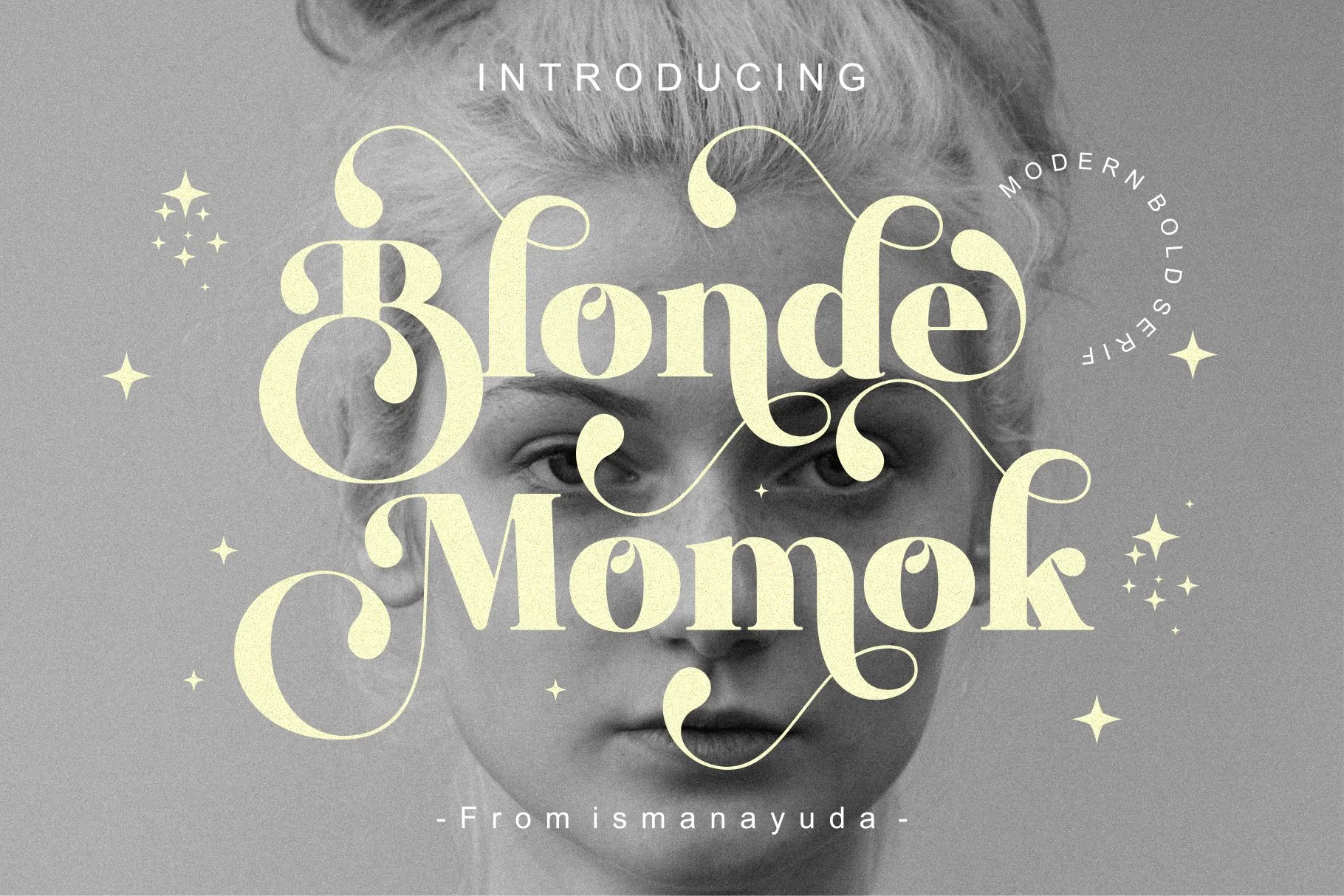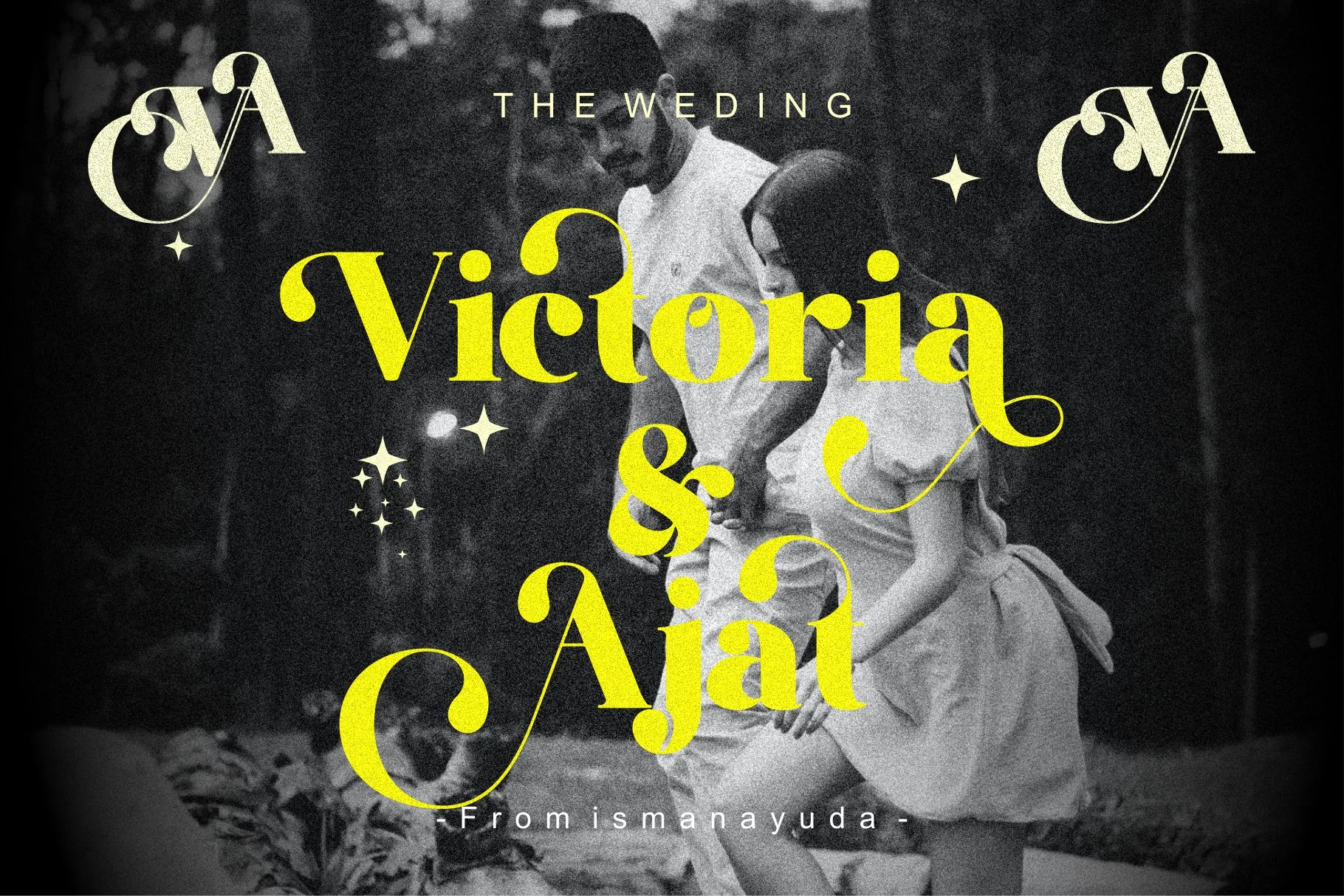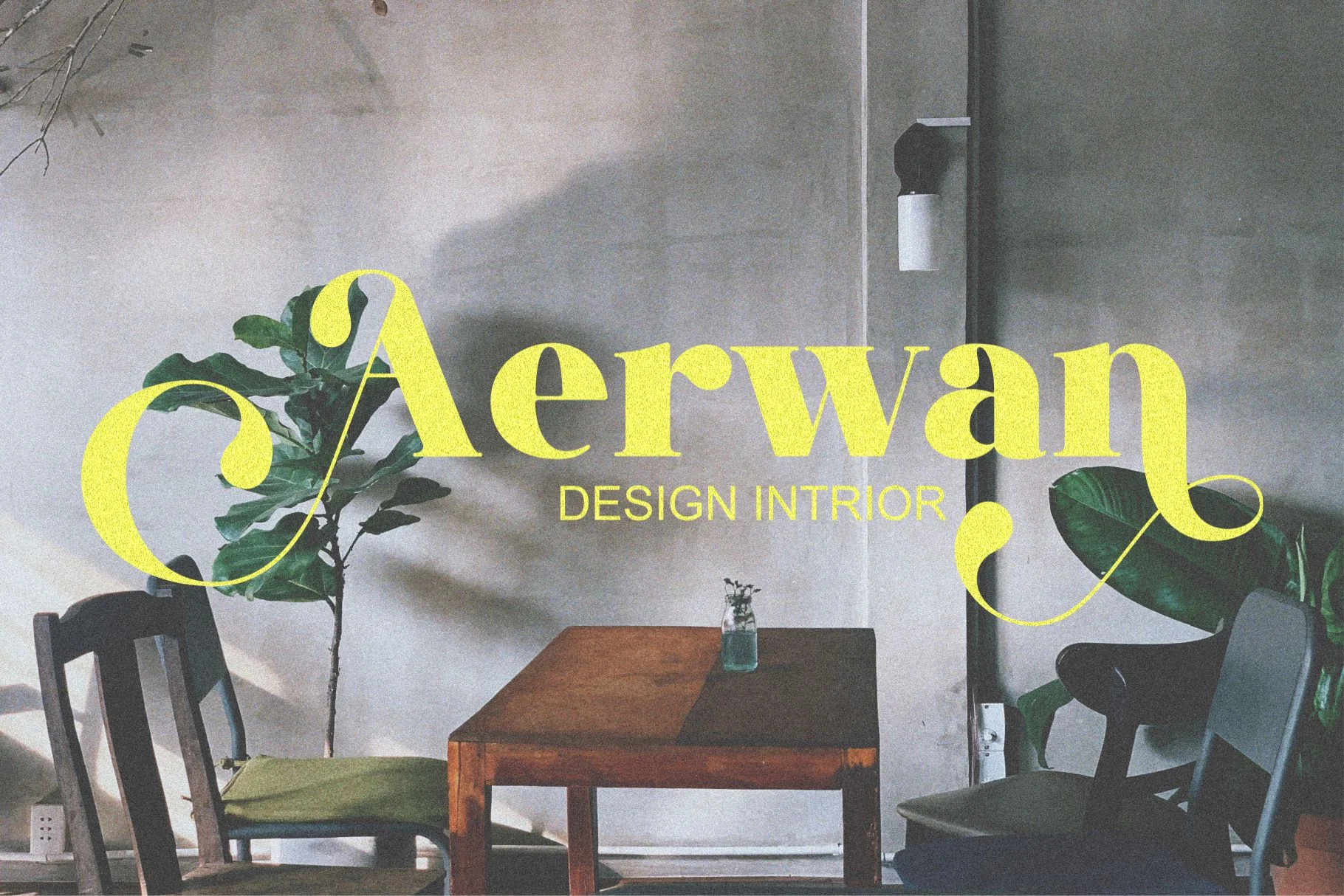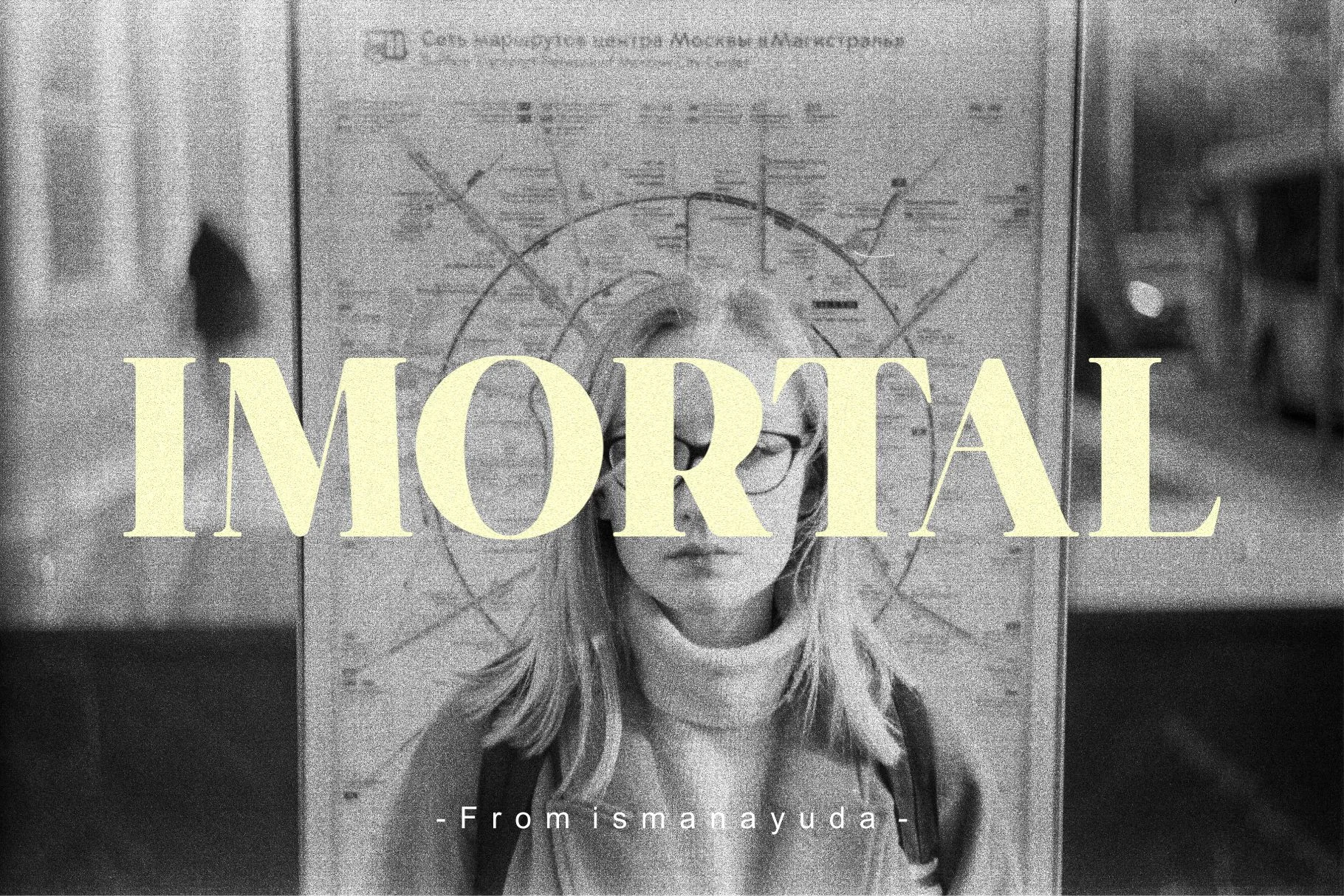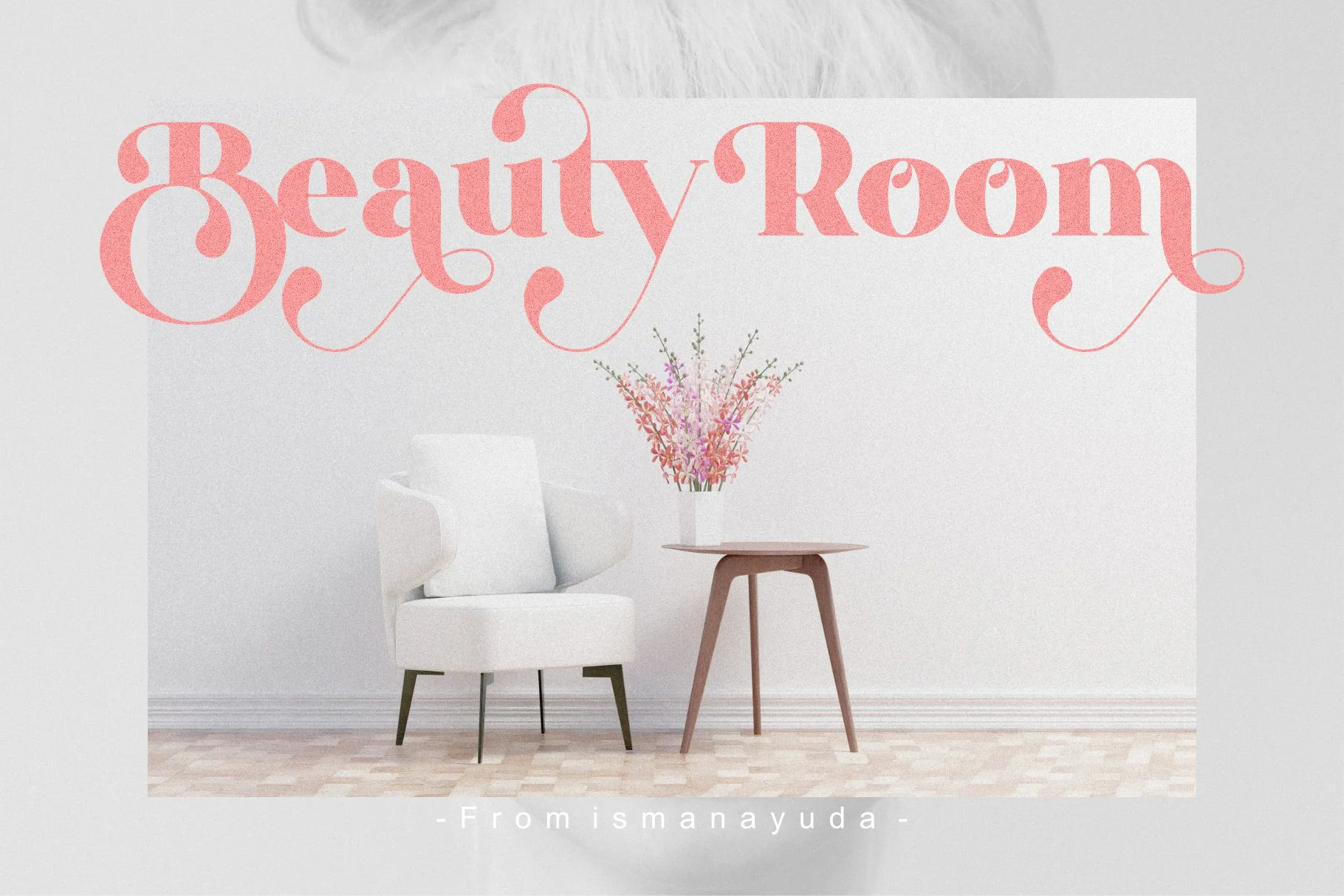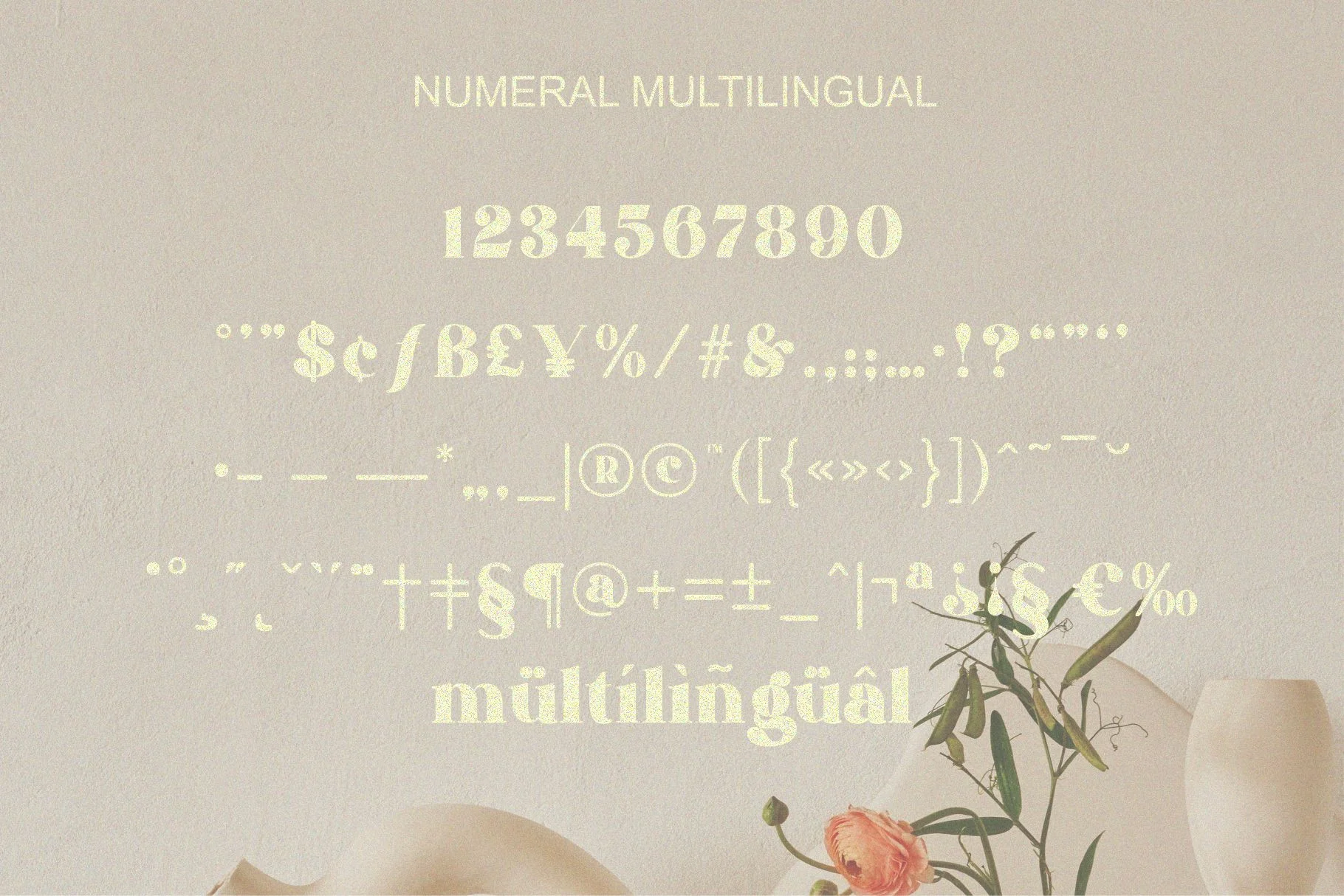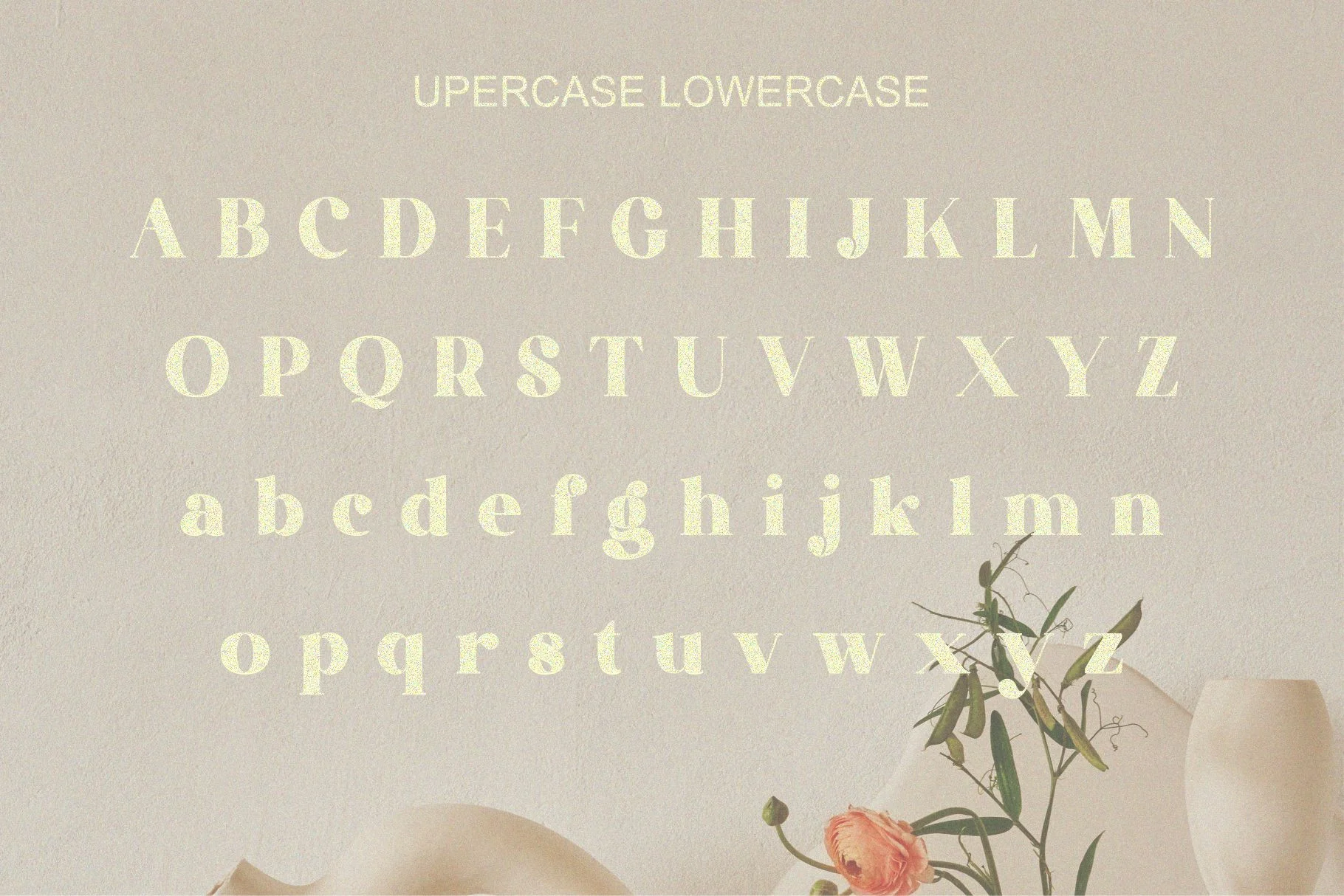
Blonde Momok
Blonde Momok is described as a perfect blend of old-school charm and contemporary design. Its visual identity is defined by sharp, angular letterforms that give it a unique character and attitude, while its clean lines and balanced proportions maintain a refined, polished look. The font features prominent decorative swashes and ligatures, particularly visible in the rounded, looping
- Fashion Editorials: Capturing a chic and sophisticated aesthetic.
- Branding & Logos: Creating high-impact, memorable visual identities.
- Headlines: Its bold weight and ornate details make it a standout display font.